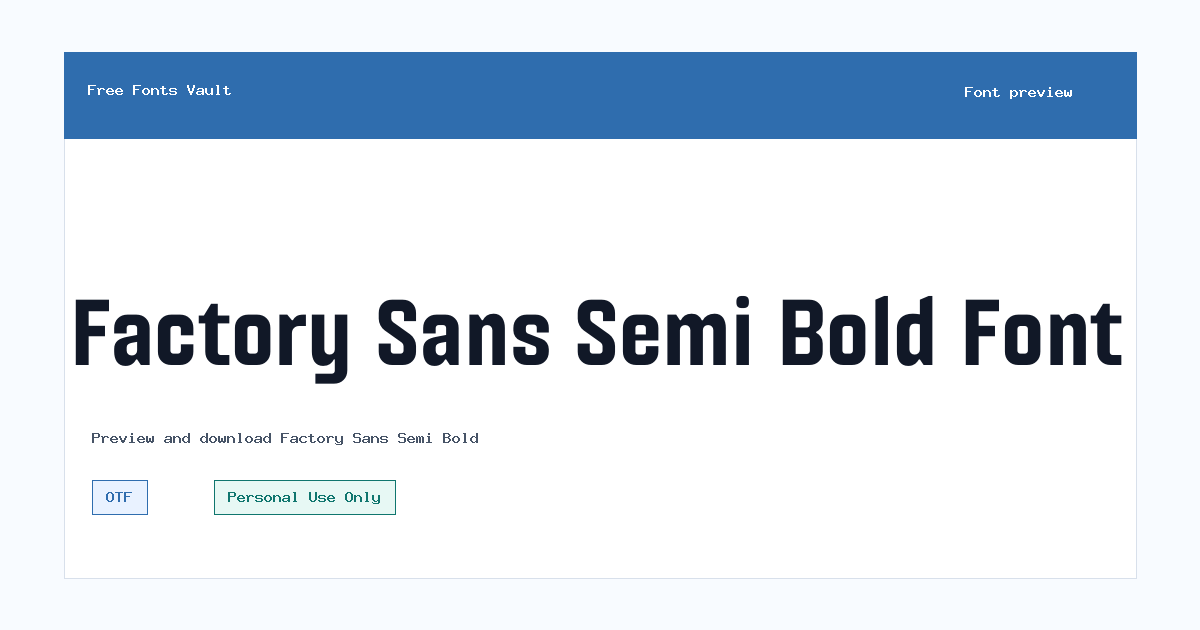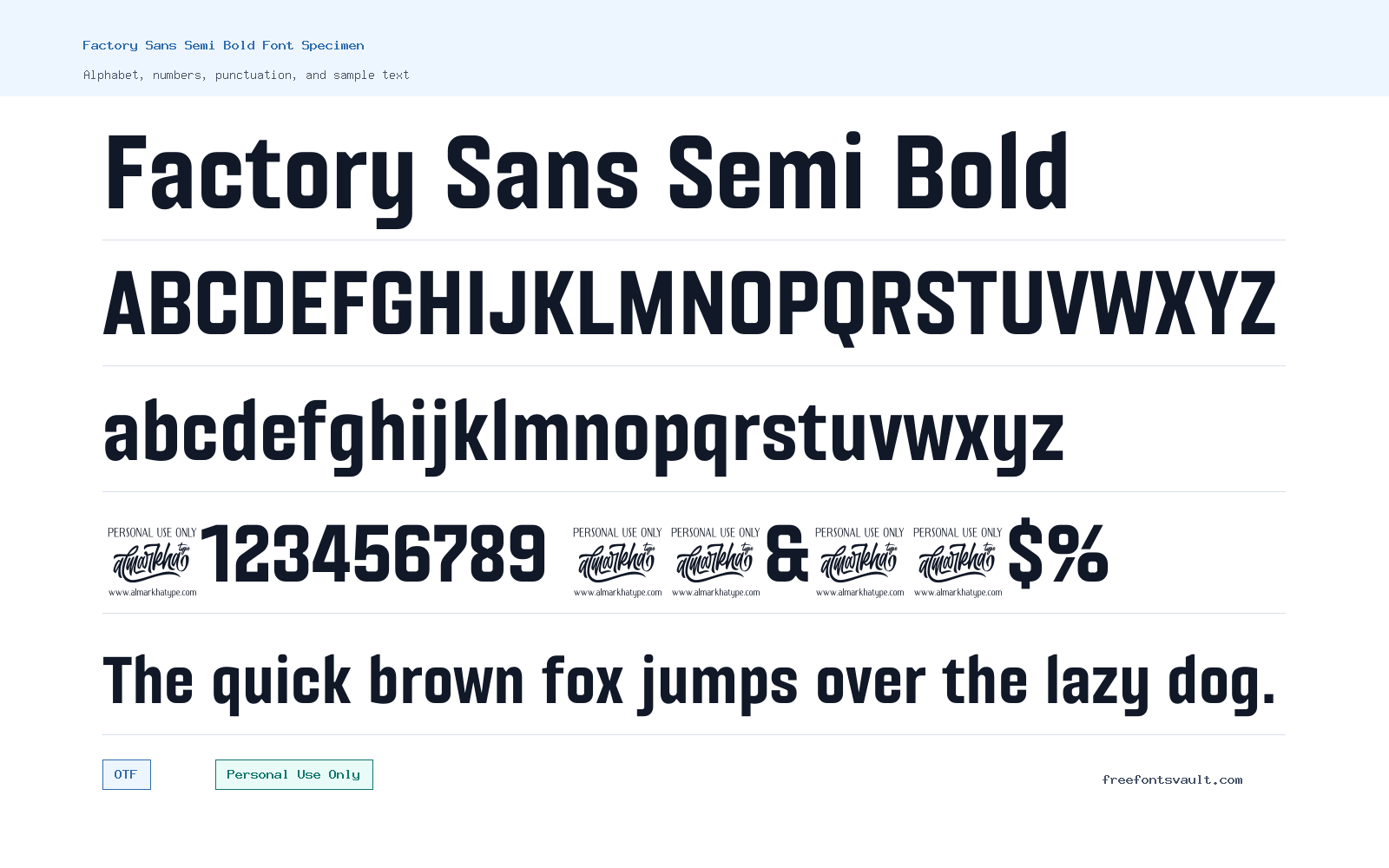
Factory Sans Semi Bold
Factory Sans Semi Bold font preview showing the family name
Factory Sans Semi Bold Font
Factory Sans Semi Bold font specimen showing alphabet, numbers, and sample text
Factory Sans Semi Bold font.
Factory Sans Semi Bold is a strong sans serif font with a heavier text presence, suited to short headings, display lines, branding drafts, posters, and clean layout experiments.
About Factory Sans Semi Bold
Factory Sans Semi Bold is part of the Factory Sans Serif Font Family and comes in an OTF font file. The available style is a normal upright cut with a bold listed weight, so it is best approached as a display-friendly sans serif rather than a light reading face. Its Semi Bold name suggests a firm middle-to-heavy voice, useful when you want text to stand out without moving into an overly heavy black weight. For visitors testing it in the preview box, the most useful checks are uppercase words, short brand-style names, compact headings, and two- or three-word poster lines.
Use Factory Sans Semi Bold where a clean sans serif structure and stronger weight can help a design feel organized. It can work well in logo concepts, packaging mockups, social media graphics, website hero sections, app interface drafts, poster titles, and presentation covers. Keep the copy short when using it large, because heavier sans serif styles usually perform best when they are given space. Try wider tracking for all-caps text, test the spacing around round letters and diagonals, and check whether numbers, punctuation, and accented characters meet your project needs before committing it to a design.
For logo work, treat Factory Sans Semi Bold as a starting point for personal drafts unless you have confirmed the proper license for the final use. A semi-bold sans serif can give a wordmark a stable, direct look, especially when paired with simple spacing and minimal decoration. If the project needs a custom brand identity, test the font at very large sizes and look closely at letter spacing, repeated letters, and how the name holds up in one color. Small changes to tracking or case can make a big difference in a heavier sans serif style.
For posters and web mockups, Factory Sans Semi Bold is most useful in high-contrast roles: titles, navigation labels, call-to-action text, section headers, and short captions. Avoid using it for long paragraphs unless the preview shows comfortable reading at smaller sizes. A lighter sans serif, a neutral text face, or a readable serif can pair well with it for body copy. When pairing fonts, let Factory Sans Semi Bold handle emphasis and keep the second typeface quieter, so the design does not become too heavy or crowded.
• Normal upright sans serif style with a heavier listed weight for headings, titles, and display text
• Works best when tested with real project words, especially uppercase names, numbers, and punctuation
• Best paired with a lighter or more neutral body text font for longer reading sections
• Typography experiments that need a clean, firm sans serif voice
What kind of font is Factory Sans Semi Bold?
It is a sans serif font in a normal upright style with a heavier listed weight, making it more suitable for headings and short display text than long paragraphs.
What should I pair with Factory Sans Semi Bold?
Pair it with a quieter text font, such as a lighter sans serif or a readable serif, so Factory Sans Semi Bold can carry the headings while the body copy stays easy to read.